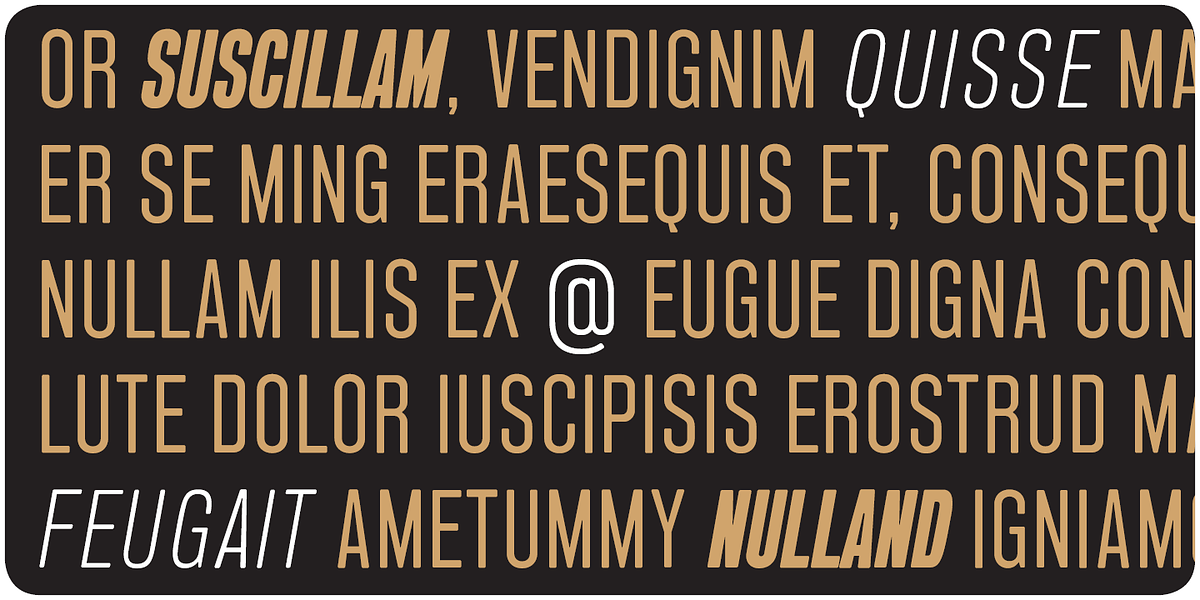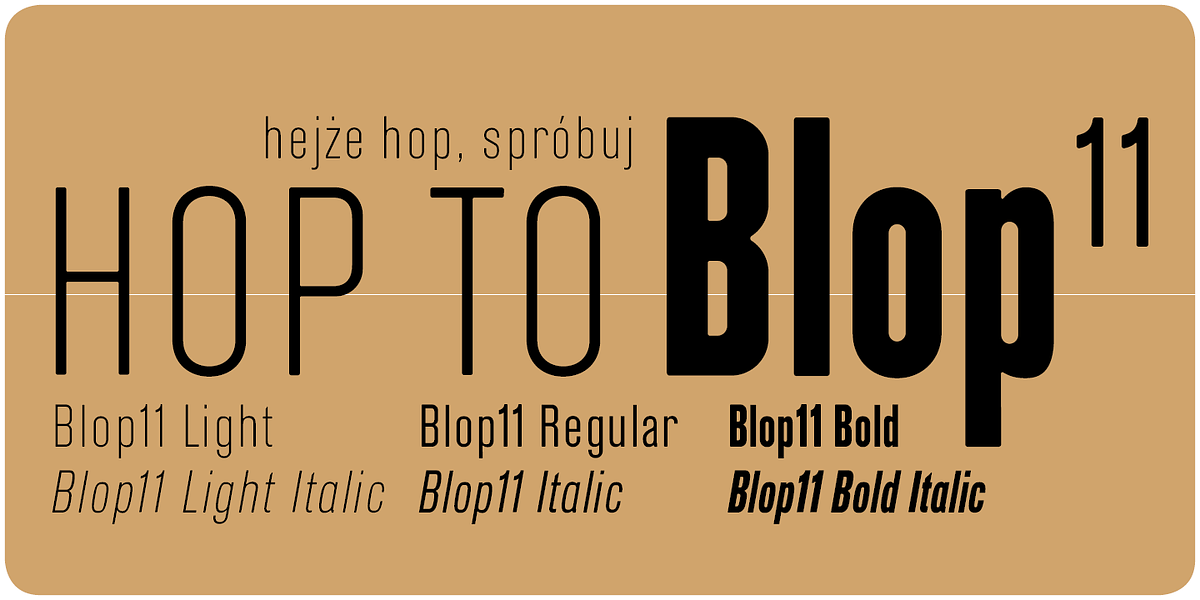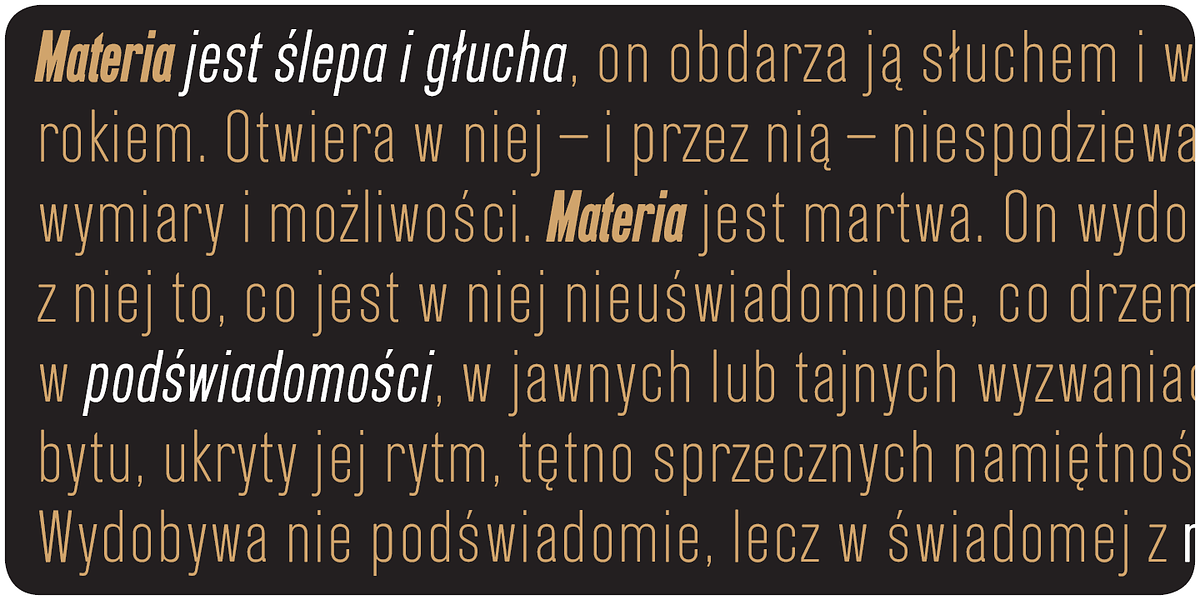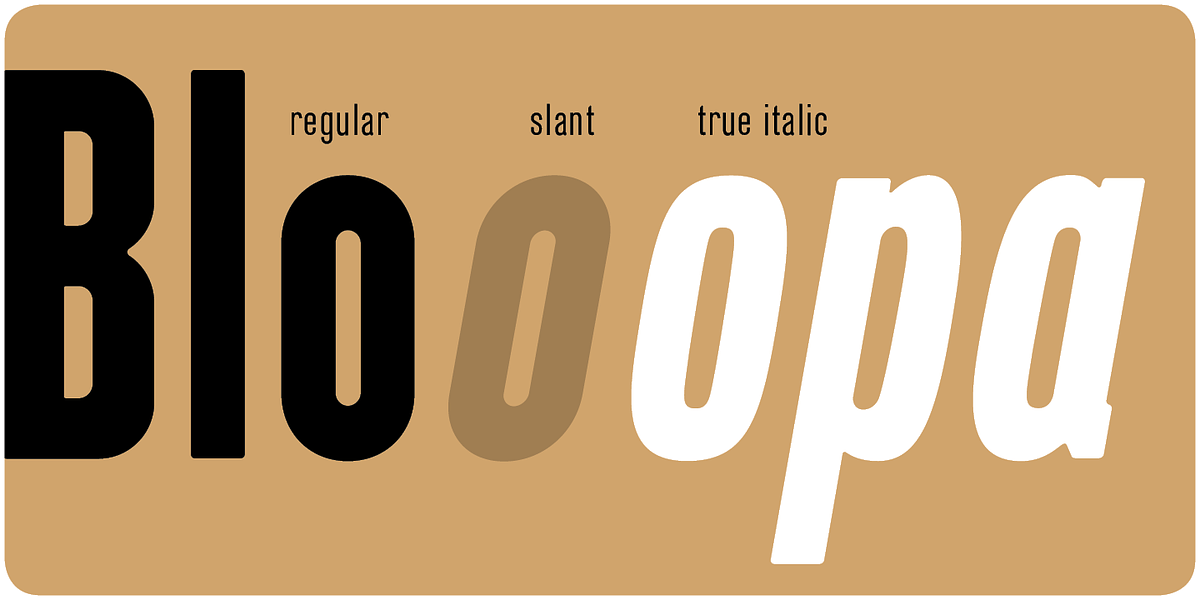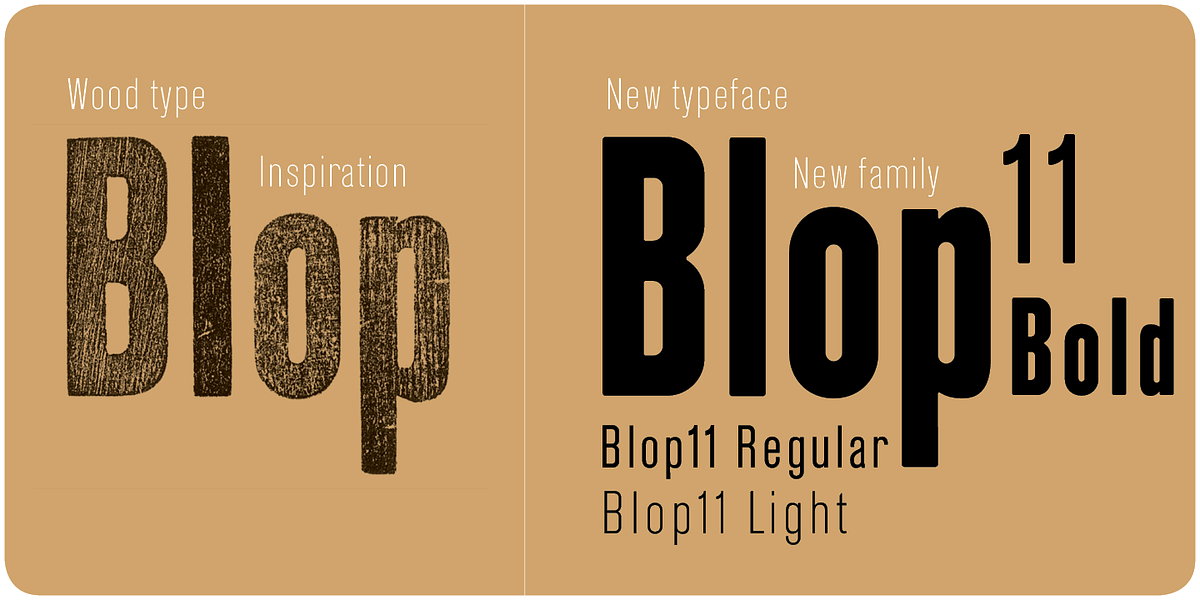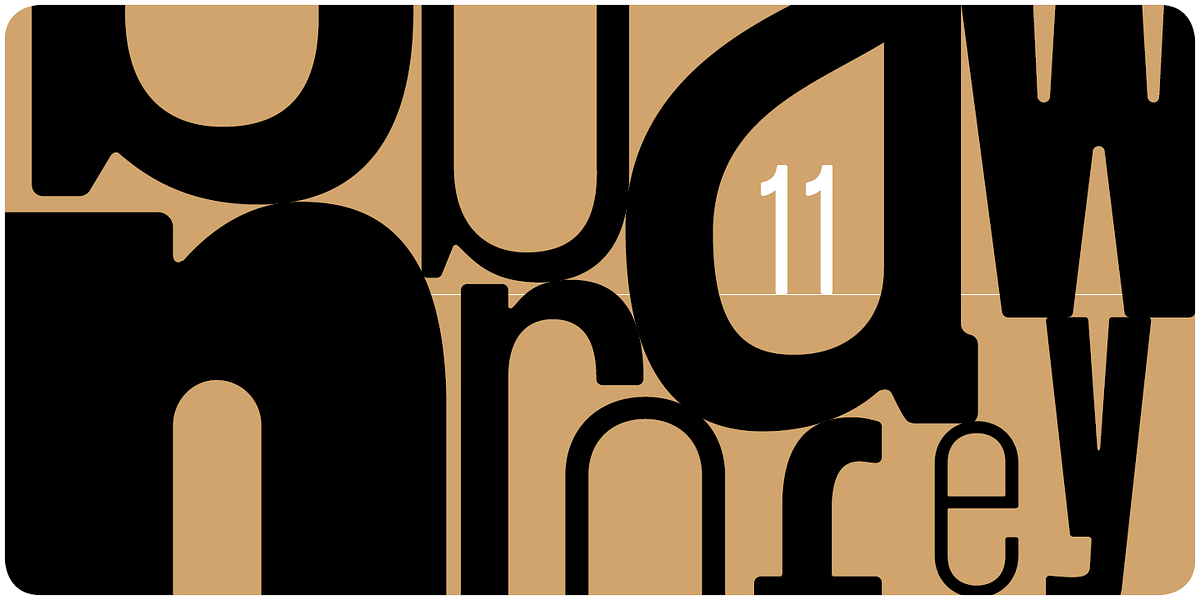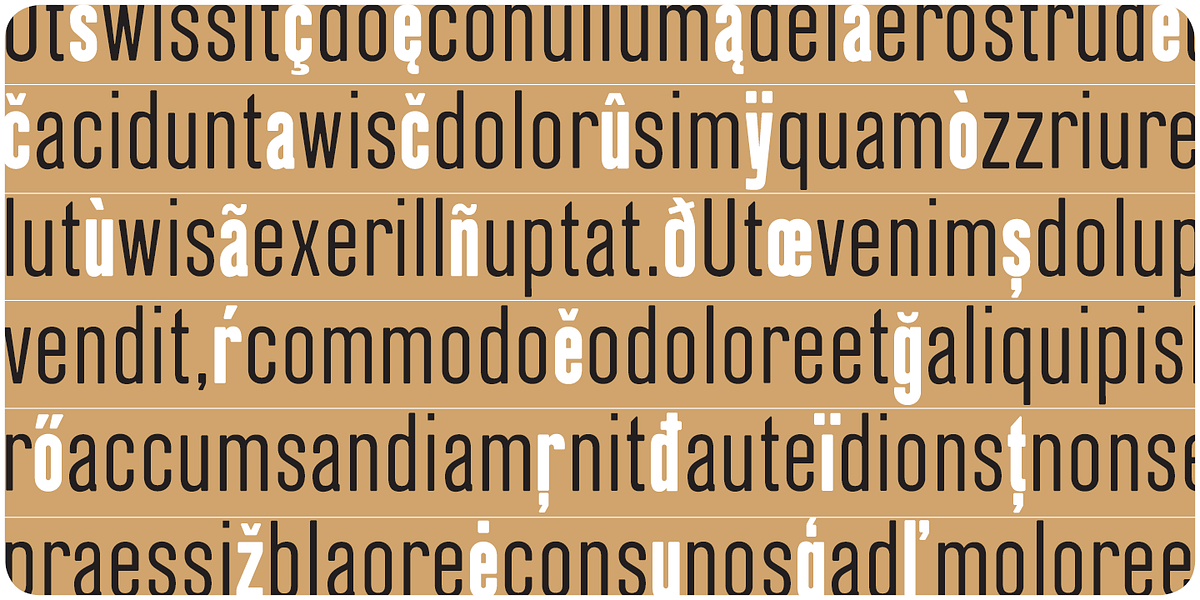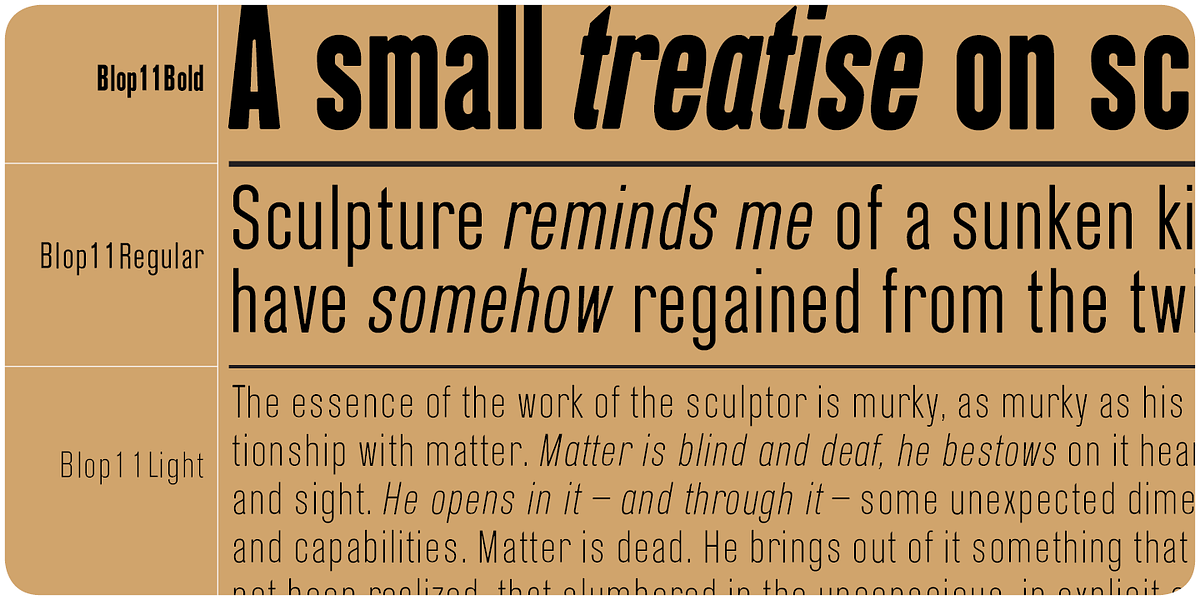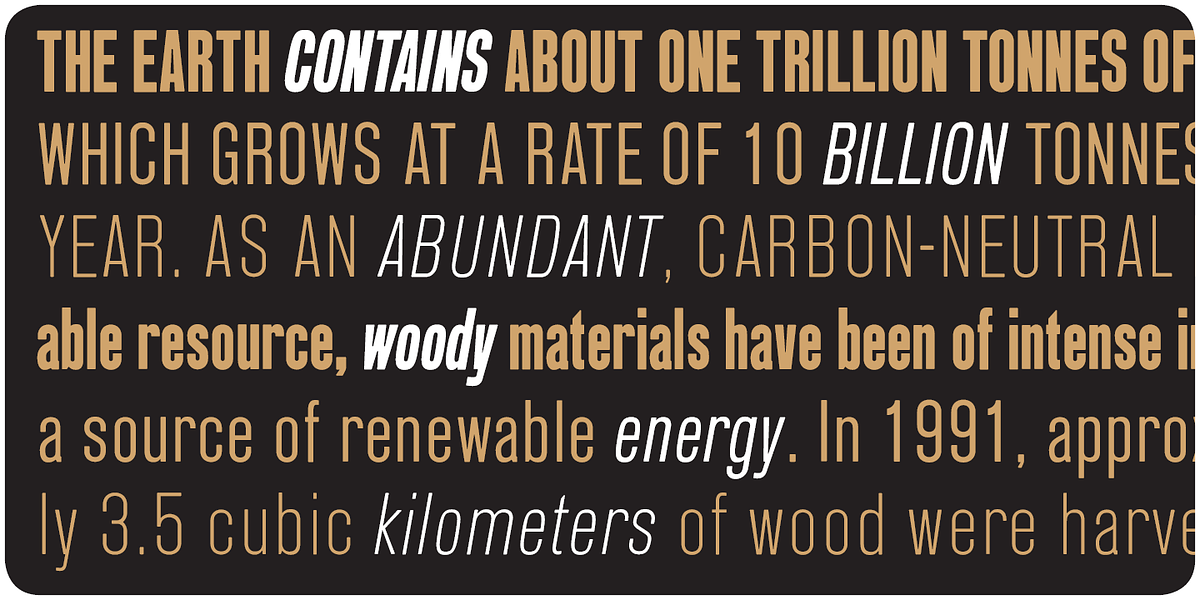
Blop 11
Blow 11 is a geometric sans-serif font family that draws inspiration from wood typefaces popular in the 1800s. Its bold weight is specifically designed to evoke the natural organic quality of wood type, featuring rounded terminals that soften its otherwise sharp geometric structure. The Regular and Light weights offer more contemporary interpretations within the geometric sans-serif style. Blow 11 is well-suited for use in headlines and short blocks of text where a bold yet legible typeface is desired.